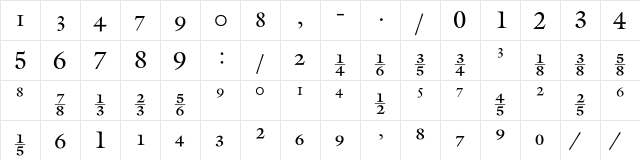
GalliardFracCC Regular
Design Context for GalliardFracCC Typeface
GalliardFracCC takes a measured approach to typography — its balanced proportions and neutral character make it a reliable workhorse for both digital and print work.